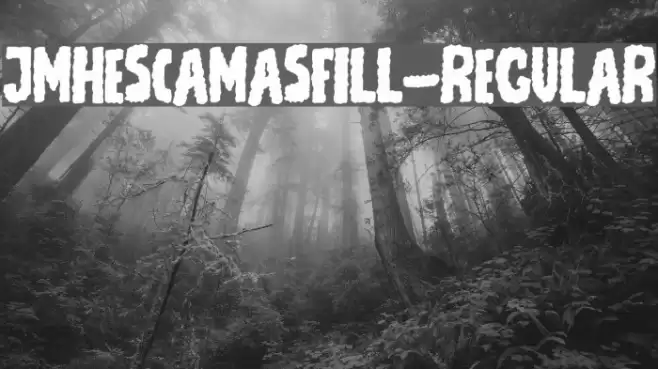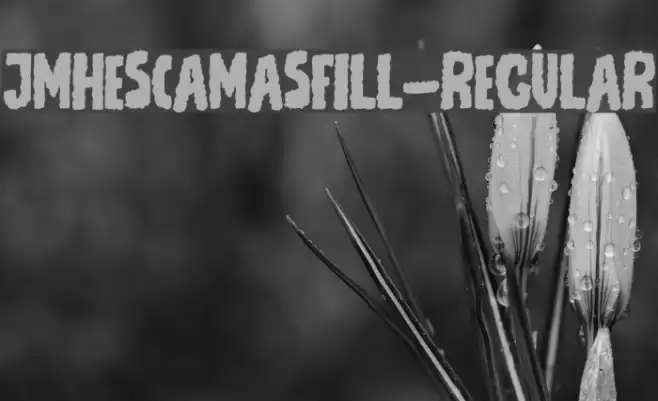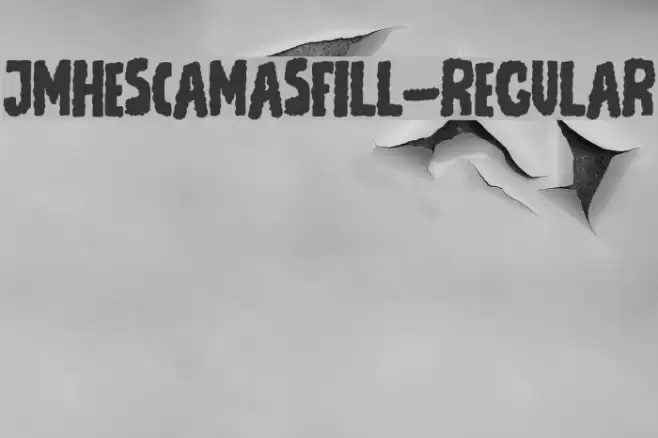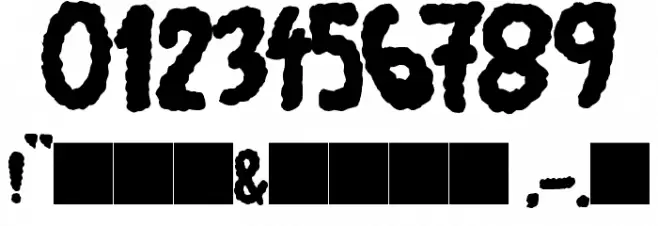
JMHEscamasFill-Regular Font
JMHEscamasFill-Regular Description
This font features a bold and textured appearance, reminiscent of scales or a rugged surface. The characters are thick and have a playful, almost cartoonish quality, making them stand out with a unique, tactile feel. The uppercase and lowercase letters maintain a consistent style, with rounded edges and a slightly irregular form that adds to its charm. The numbers and special characters follow the same design principles, ensuring a cohesive look across all glyphs. This font is perfect for projects that require a bold statement or a creative touch.
A bold, textured font with a playful, tactile appearance from Comic fonts.
- Proposed Projects: Ideal for posters, children's book covers, playful branding, and creative advertisements.